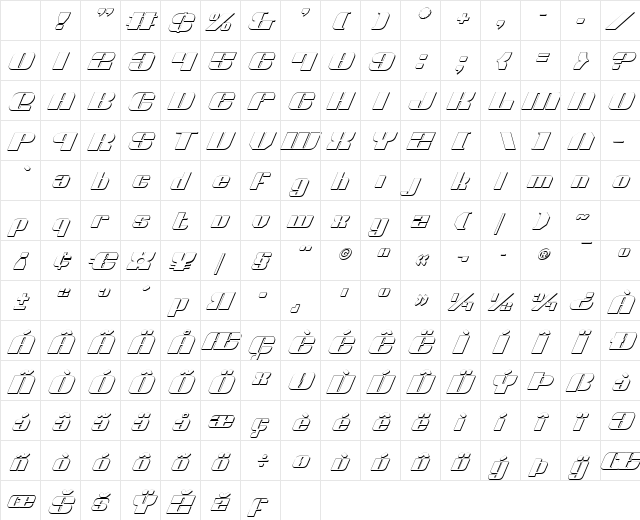
Complete Nolo Contendre Shadow Italic glyph index. Displaying only characters natively supported by Nolo Contendre Shadow Italic font.
Nolo Contendre Shadow Italic is built around its visual character rather than neutral utility - its distinctive forms are designed to make an impression at display sizes. The slanted form adds forward momentum and visual energy.
Font Pairing: Pair with a clean neutral sans-serif for body copy to let Nolo Contendre Shadow Italic's character lead without overwhelming the composition.
Pro Tip: Use Nolo Contendre Shadow Italic exclusively at display sizes - it was designed to be seen, not read at length. Let a neutral companion handle body copy.